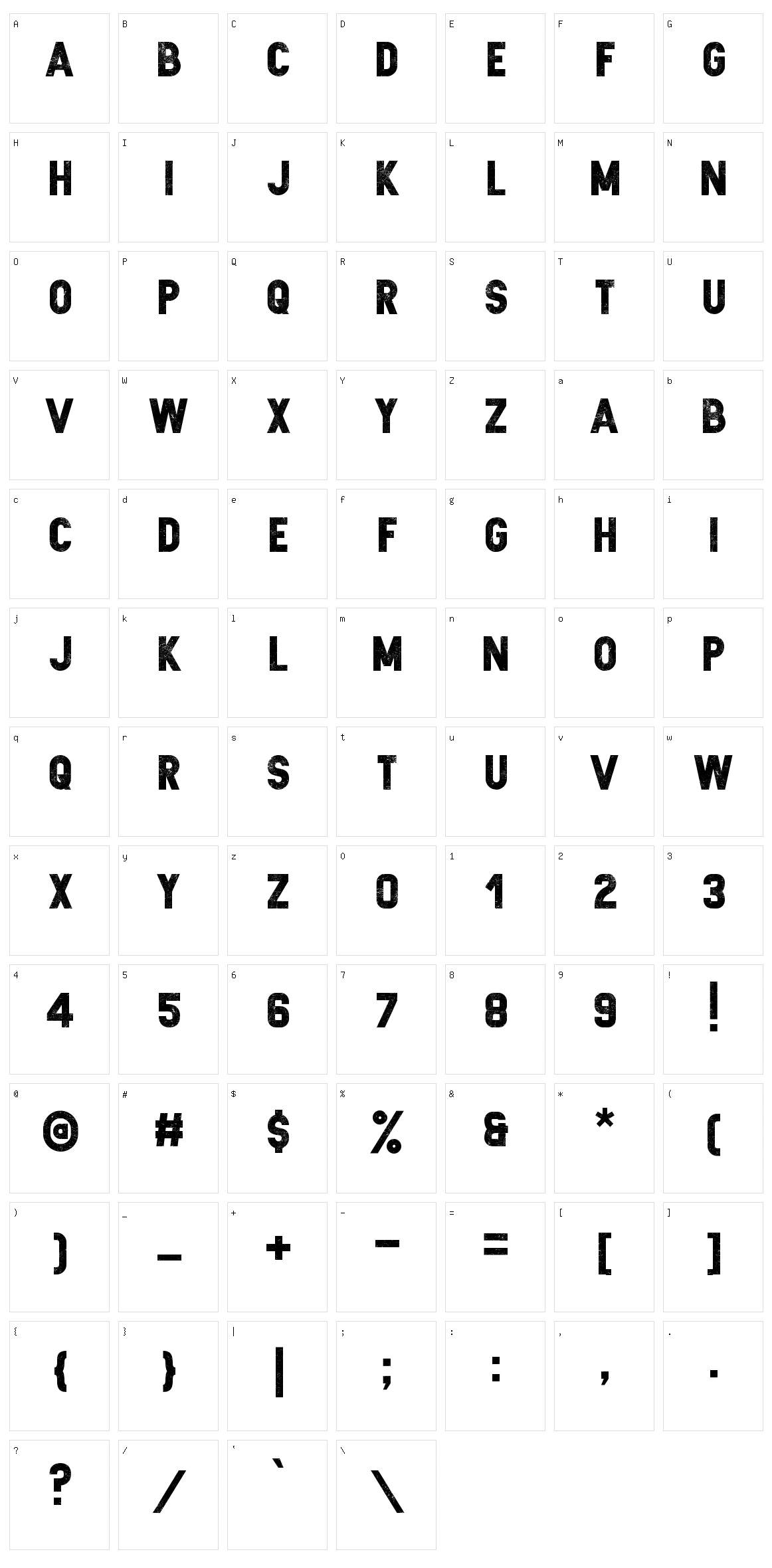
The free font Zilap Sleep is carefully designed by LJ Design Studios, showcasing a thoughtful balance of creativity and usability and falls under the Eroded font style. When you download the ZIP file, it contains only 957.17 KB of font files, making it lightweight and quick to download. Please review the license details below to understand permitted usage and distribution rights. If license information is not available, we recommend using this font for personal projects only or contacting the author directly for commercial usage permissions.